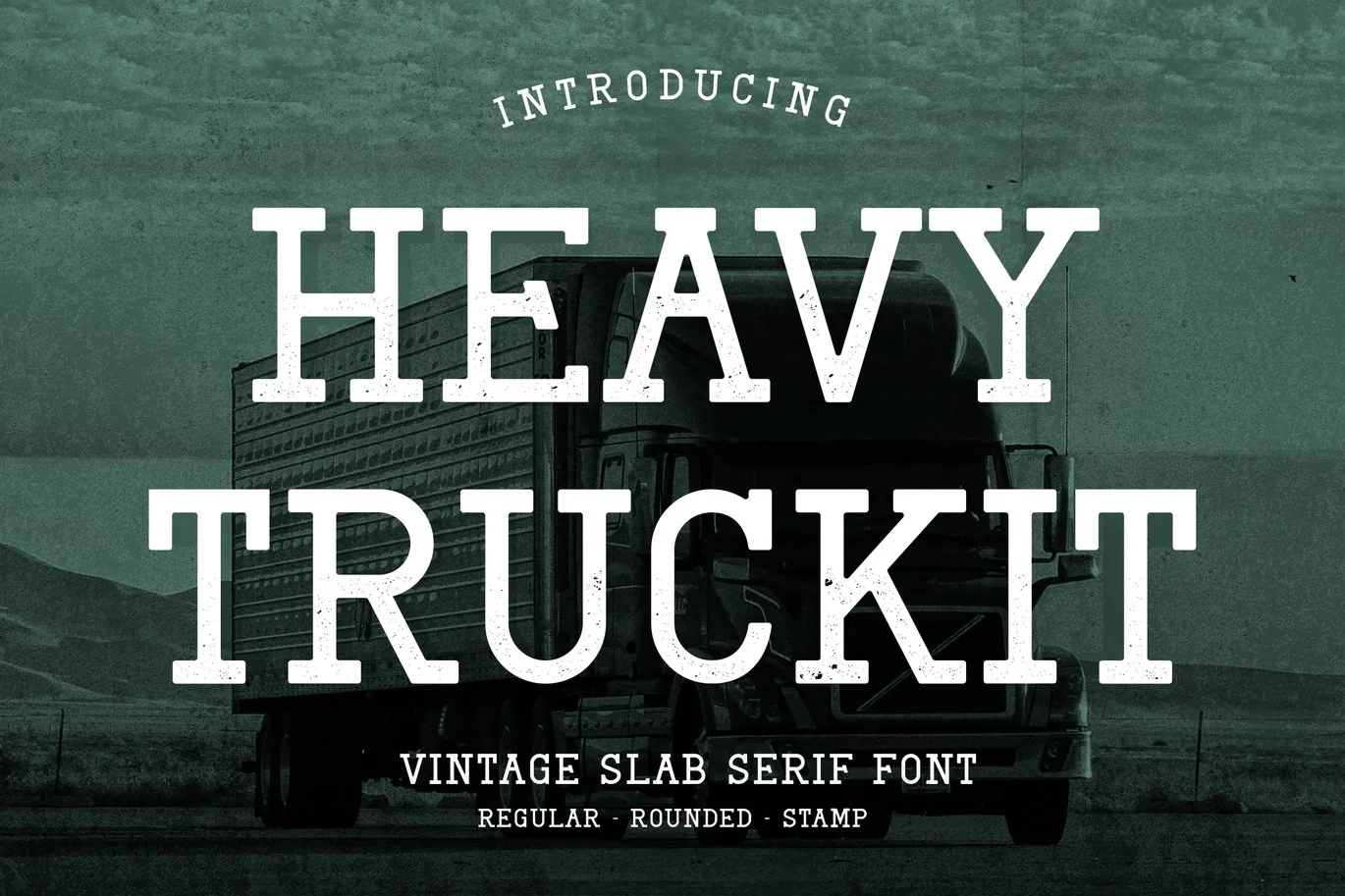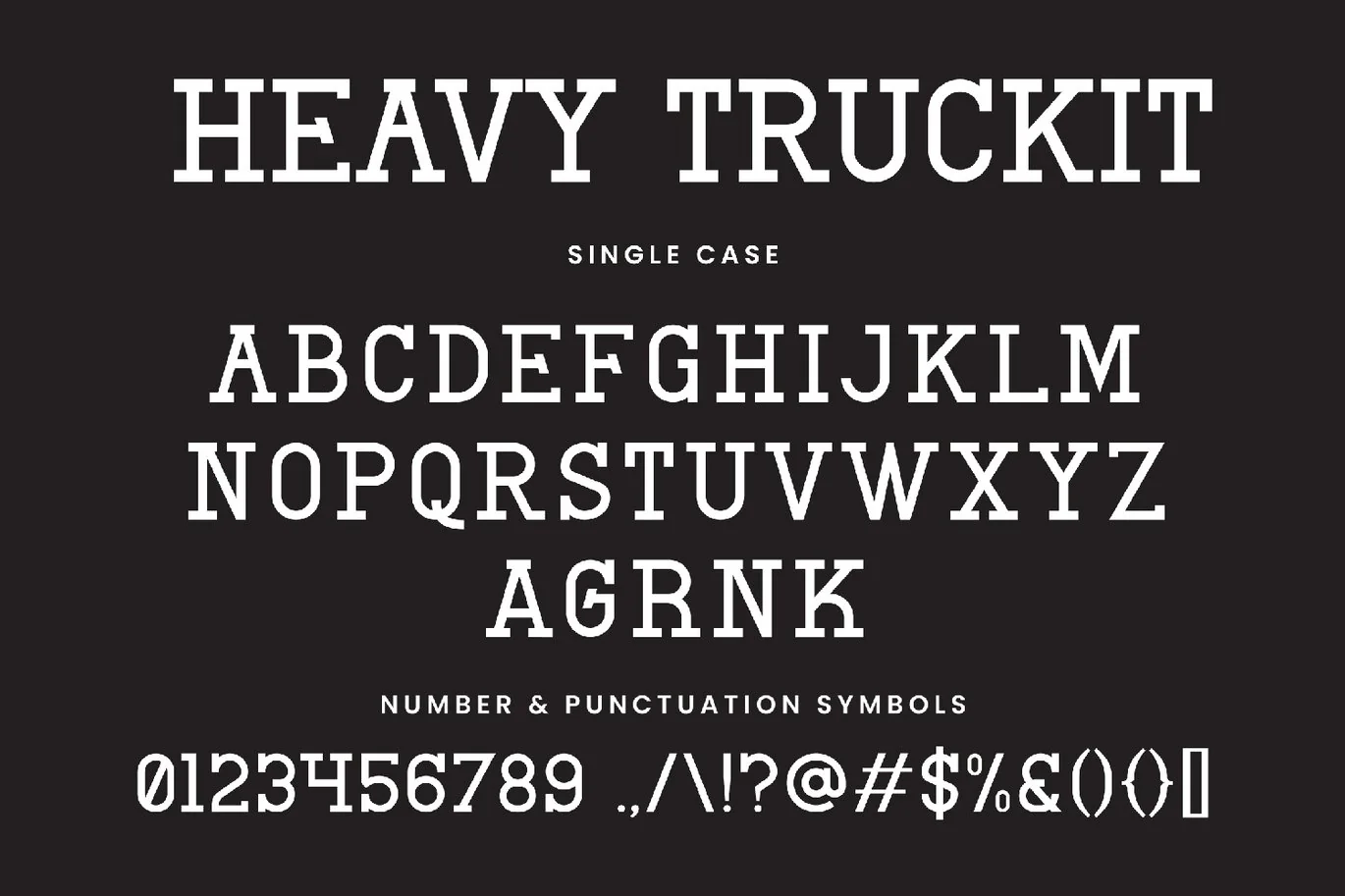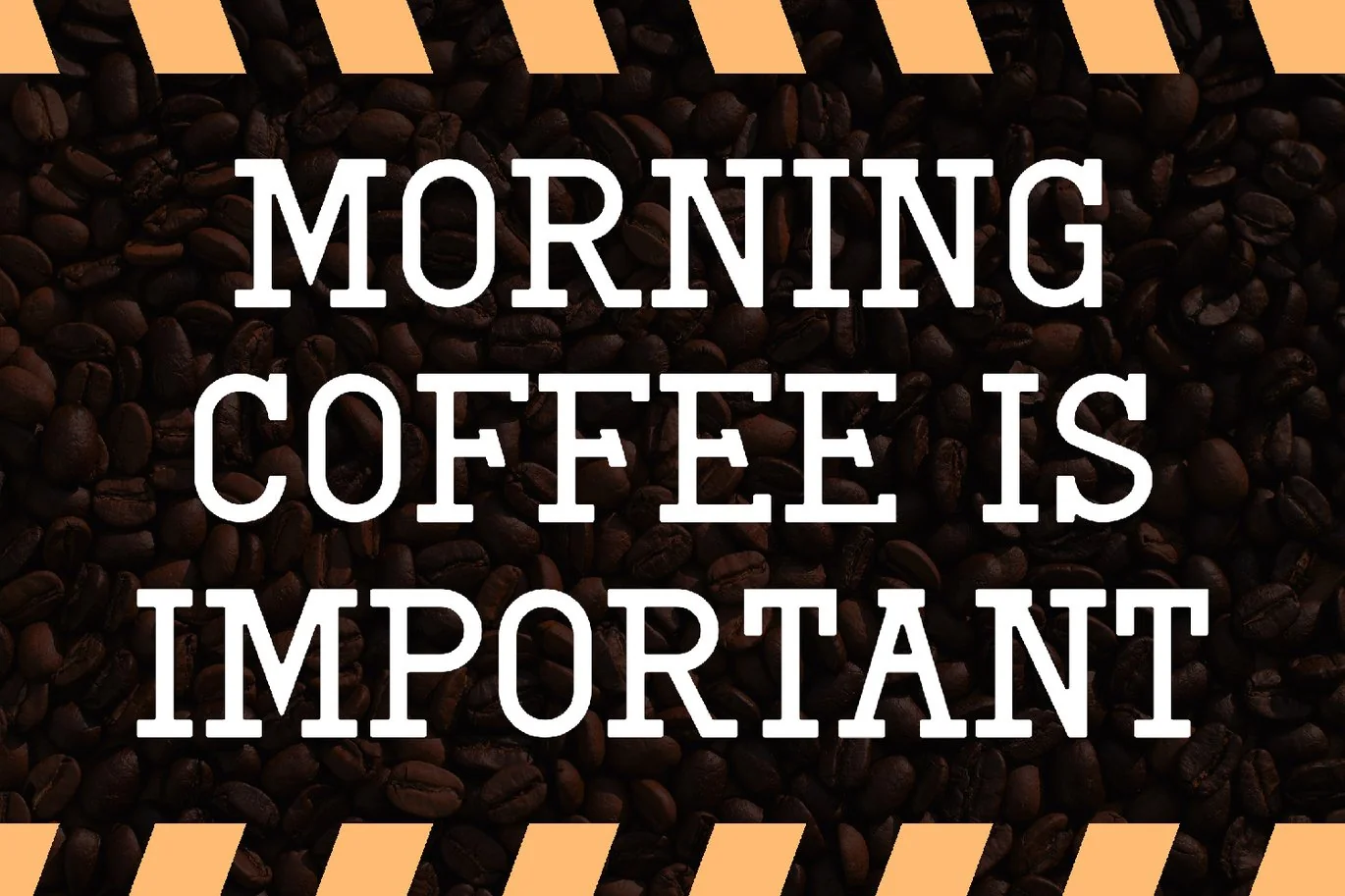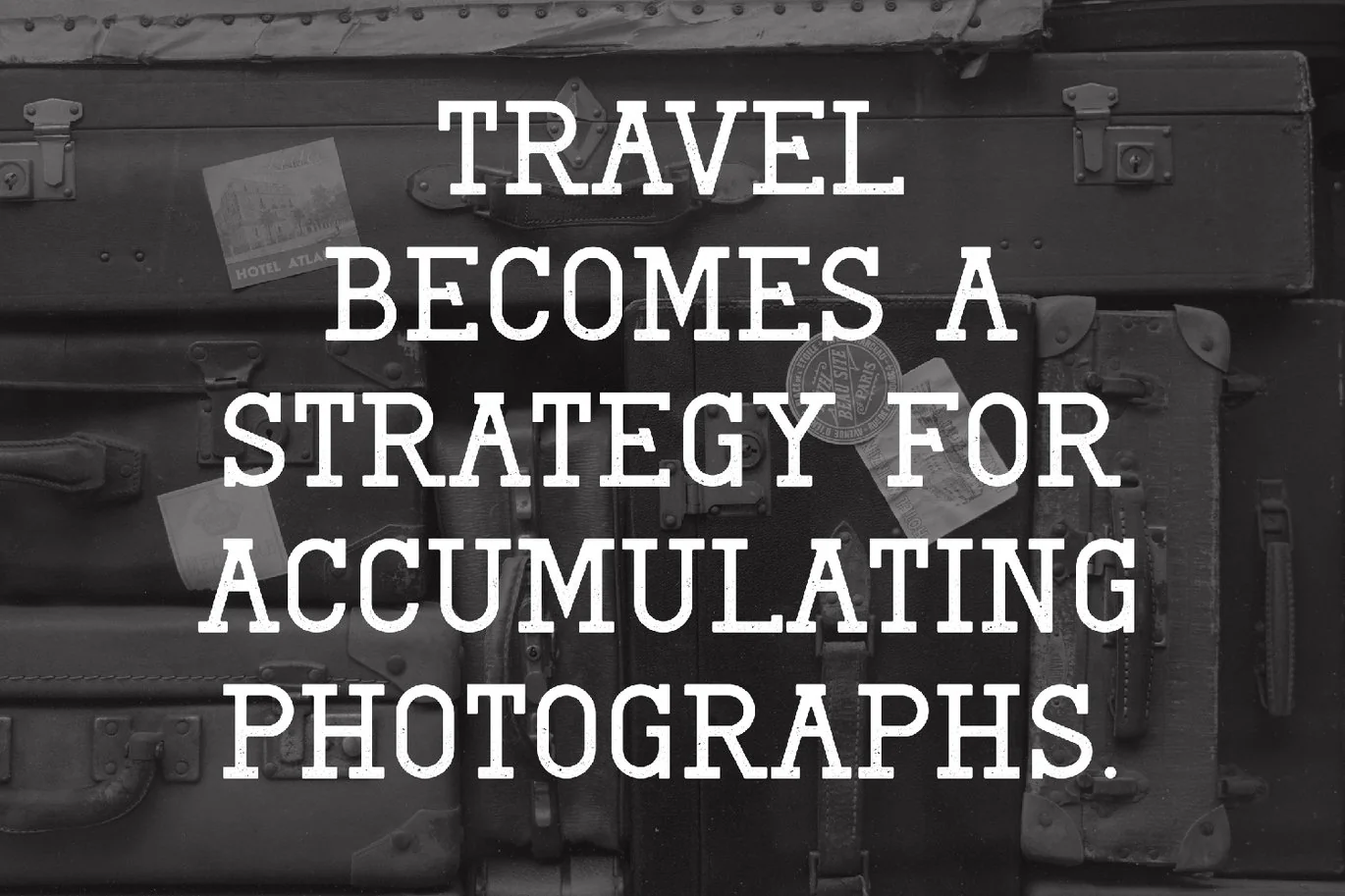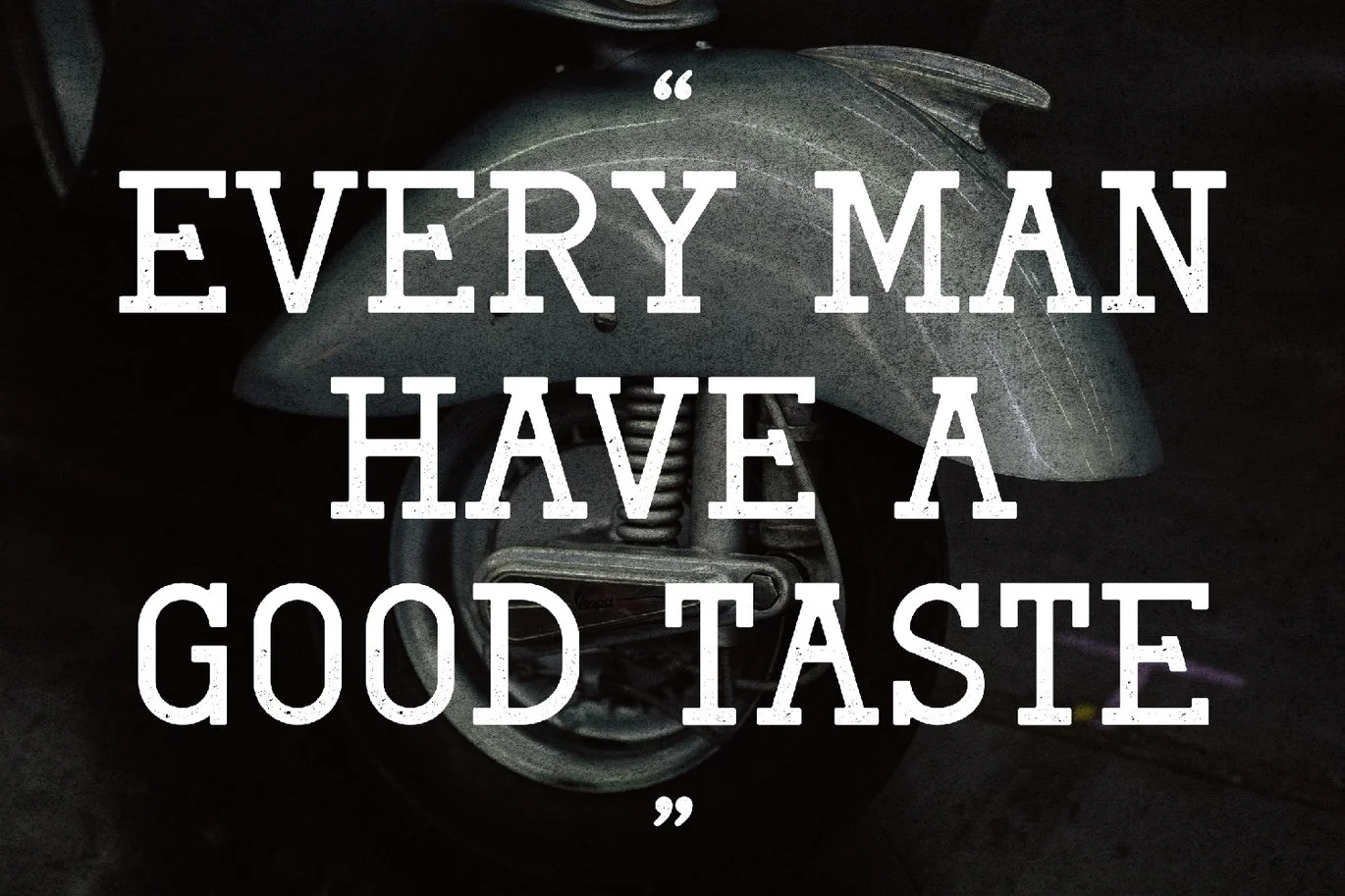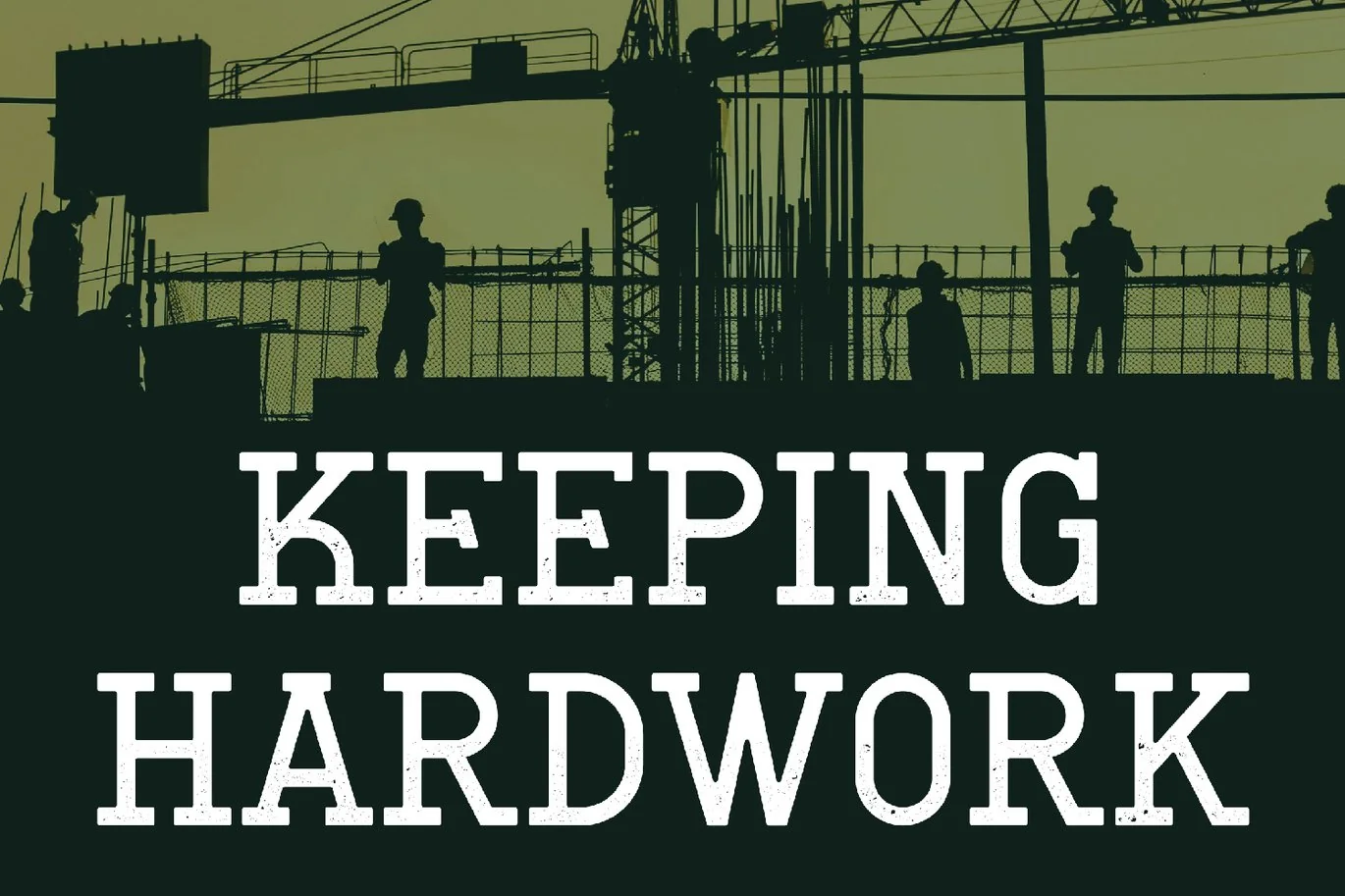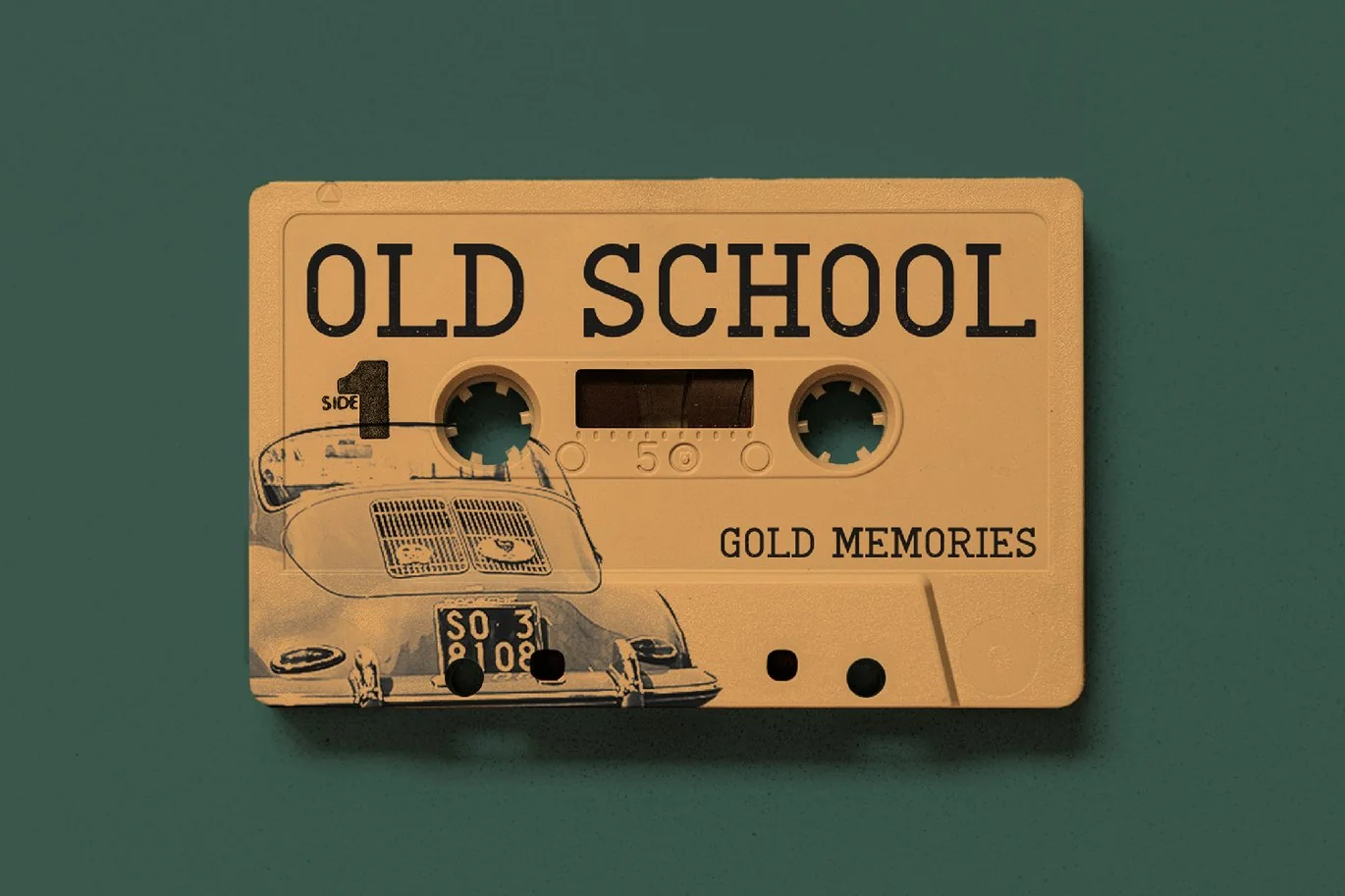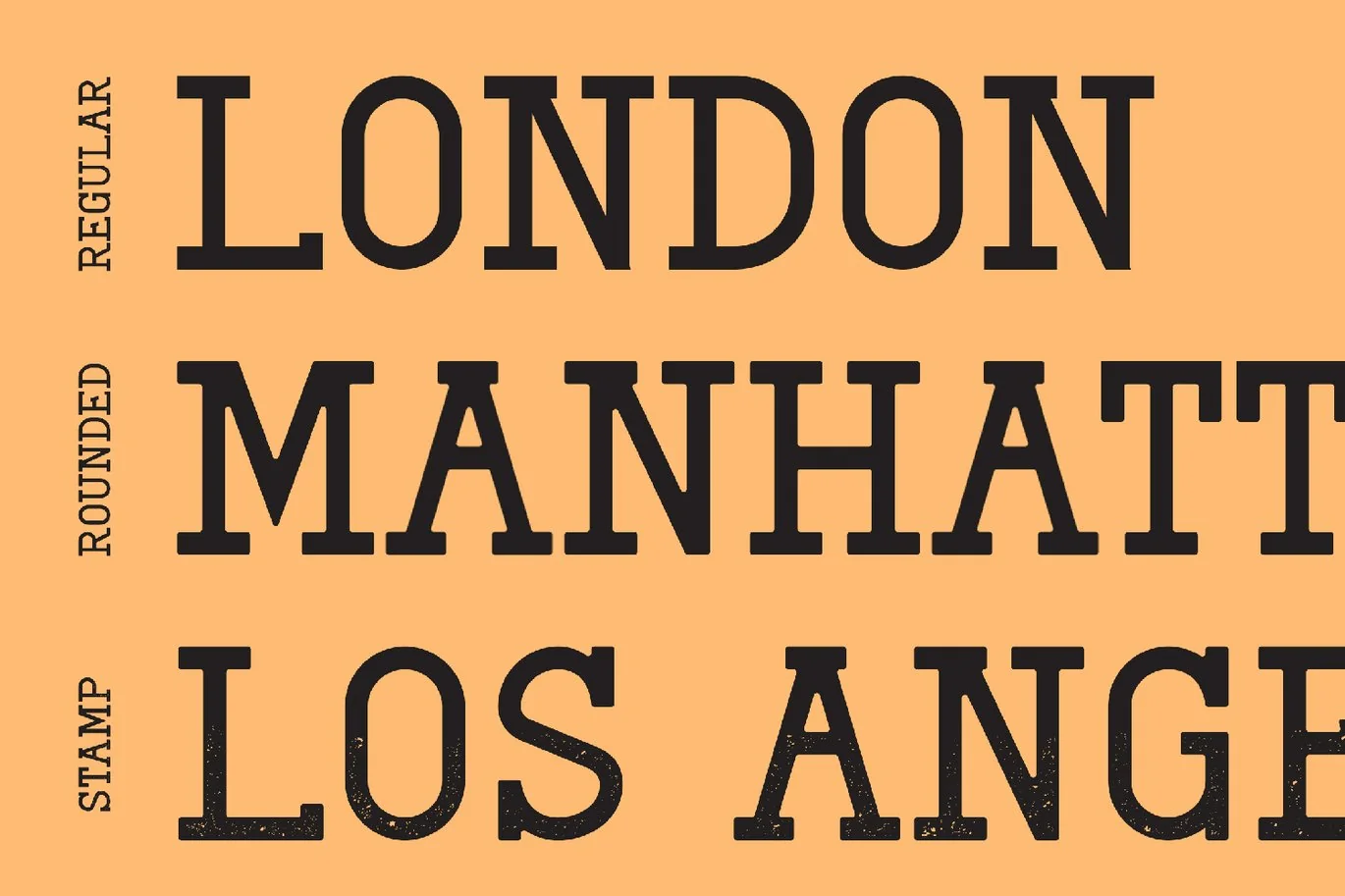
Heavy Truckit – Slab Serif Font
Heavy Truckit – Slab Serif Font contains a lowercase, and uppercase, symbol, and also supports multi-language. There’s a lot of ligature in this font. Heavy Truckit – Slab Serif Font also comes with ligatures, stylistic alternates, and many more.
this font is suitable for fashion, branding, catalog, and other designs that you want.